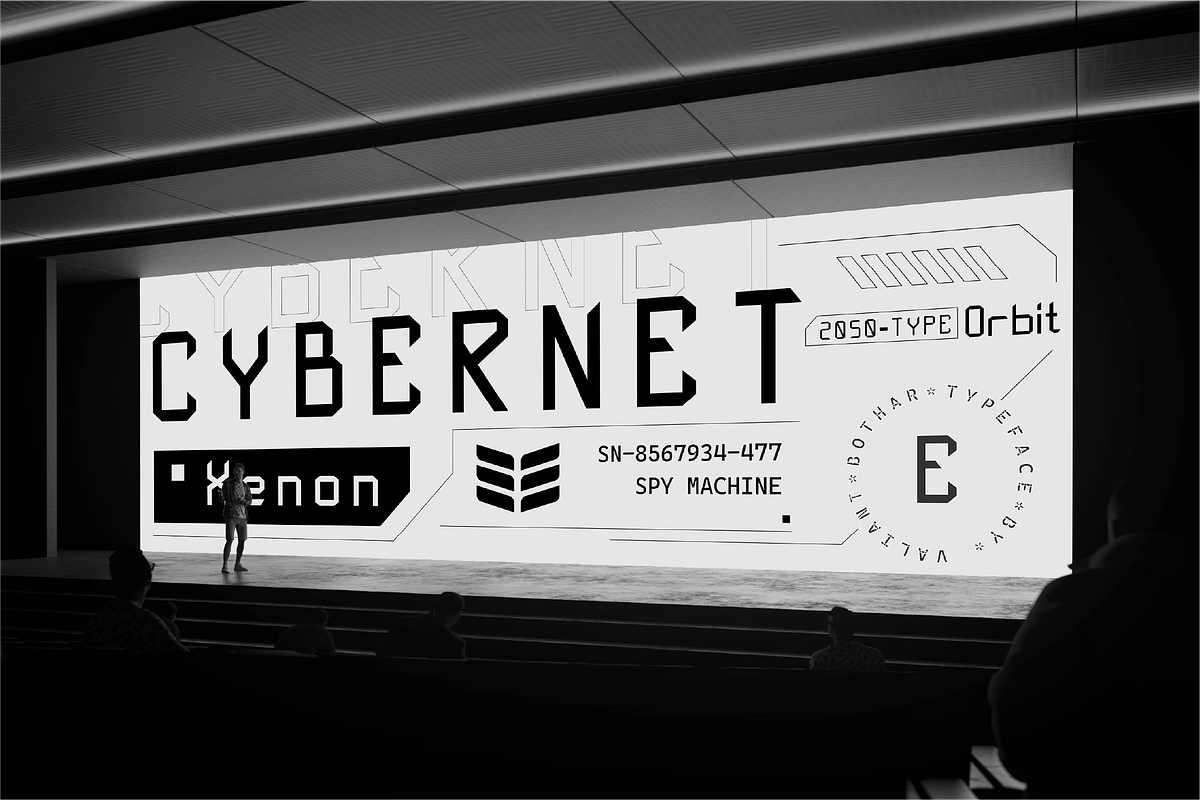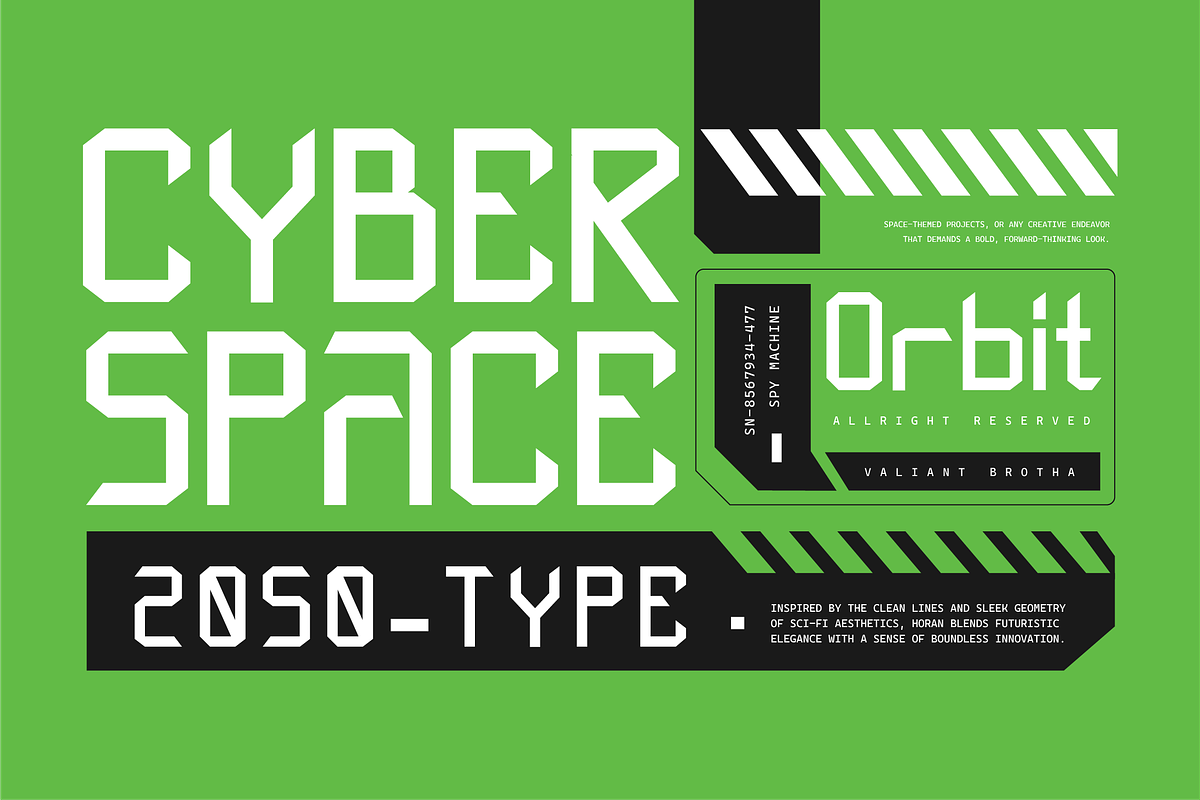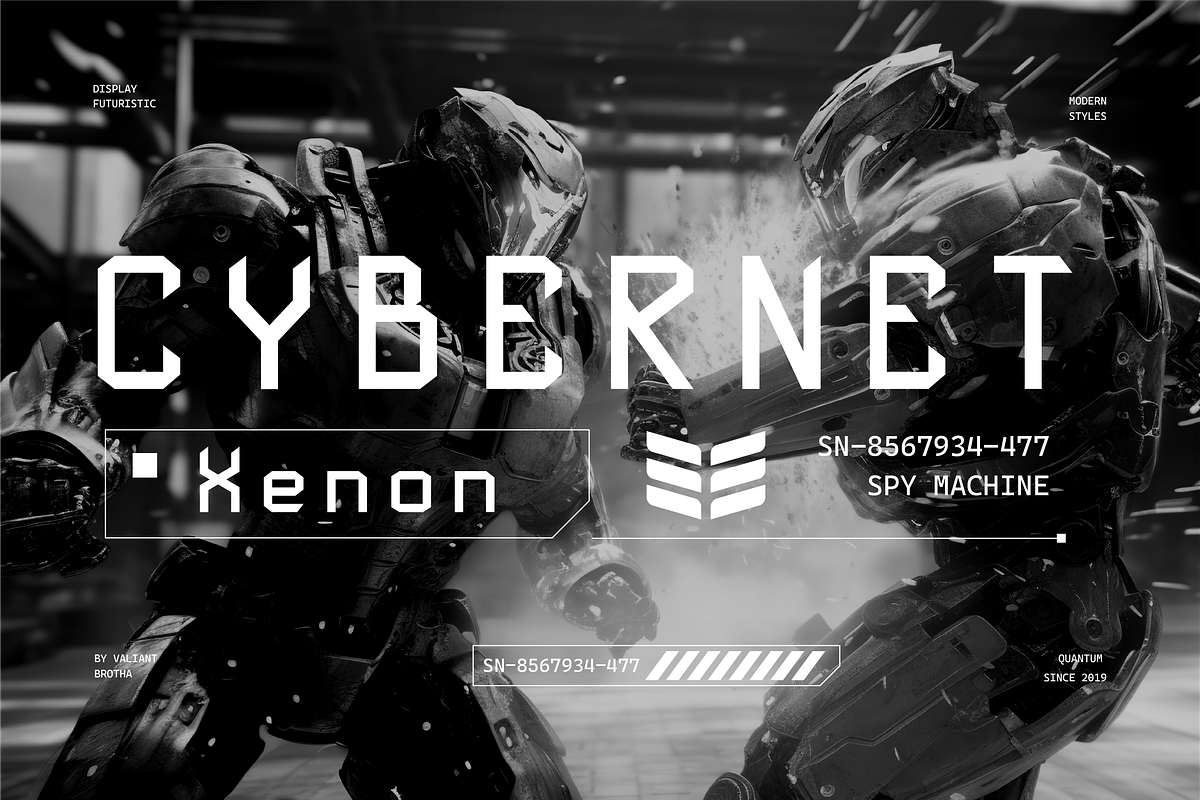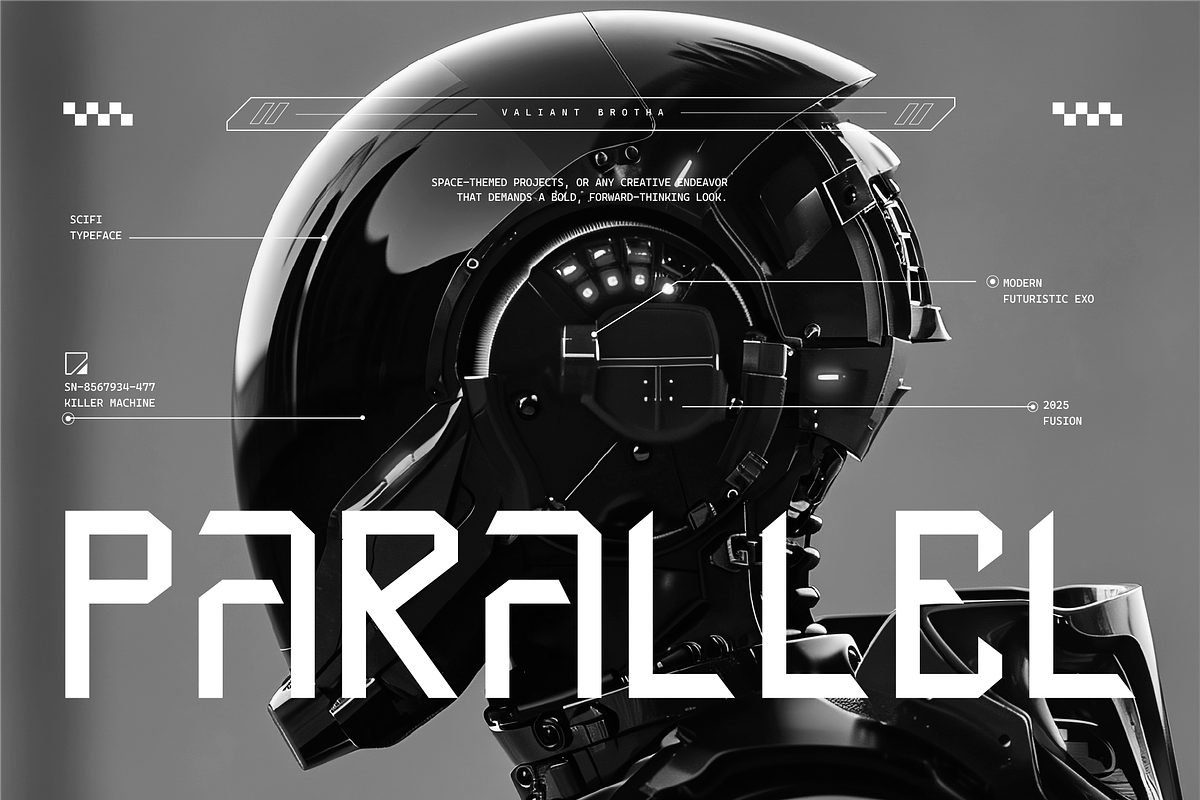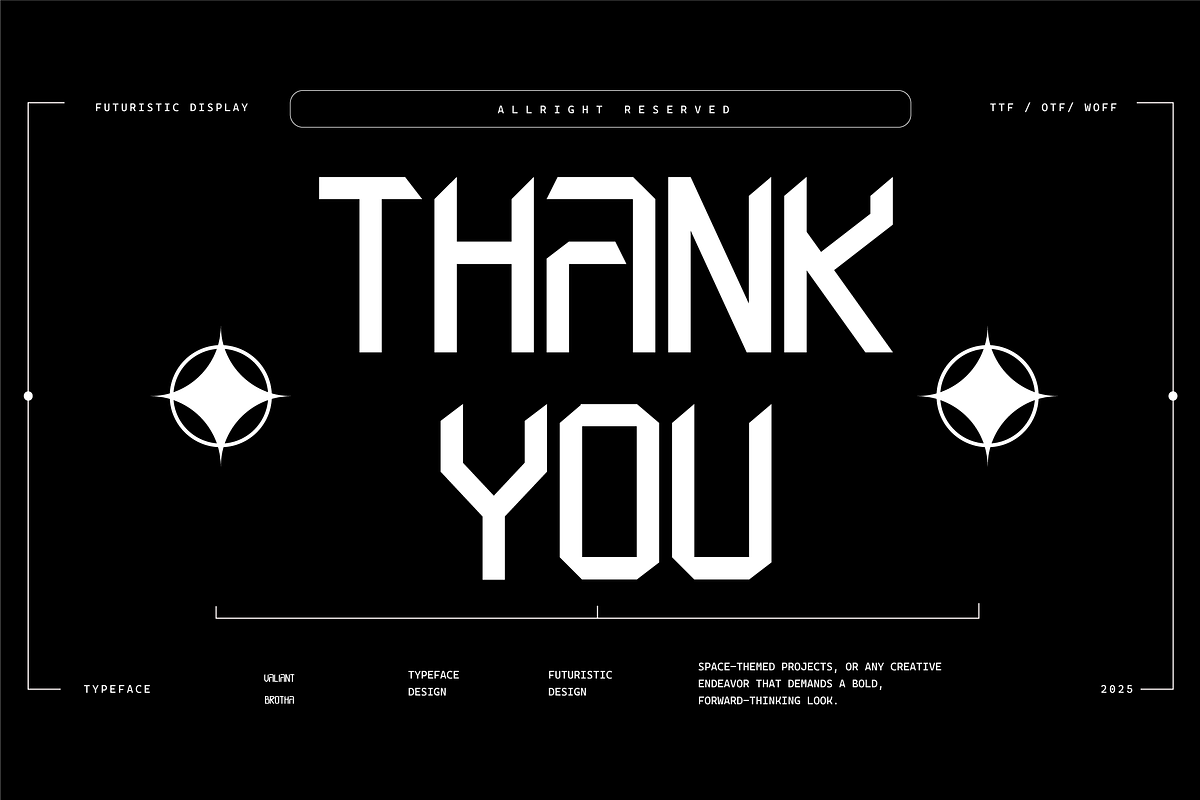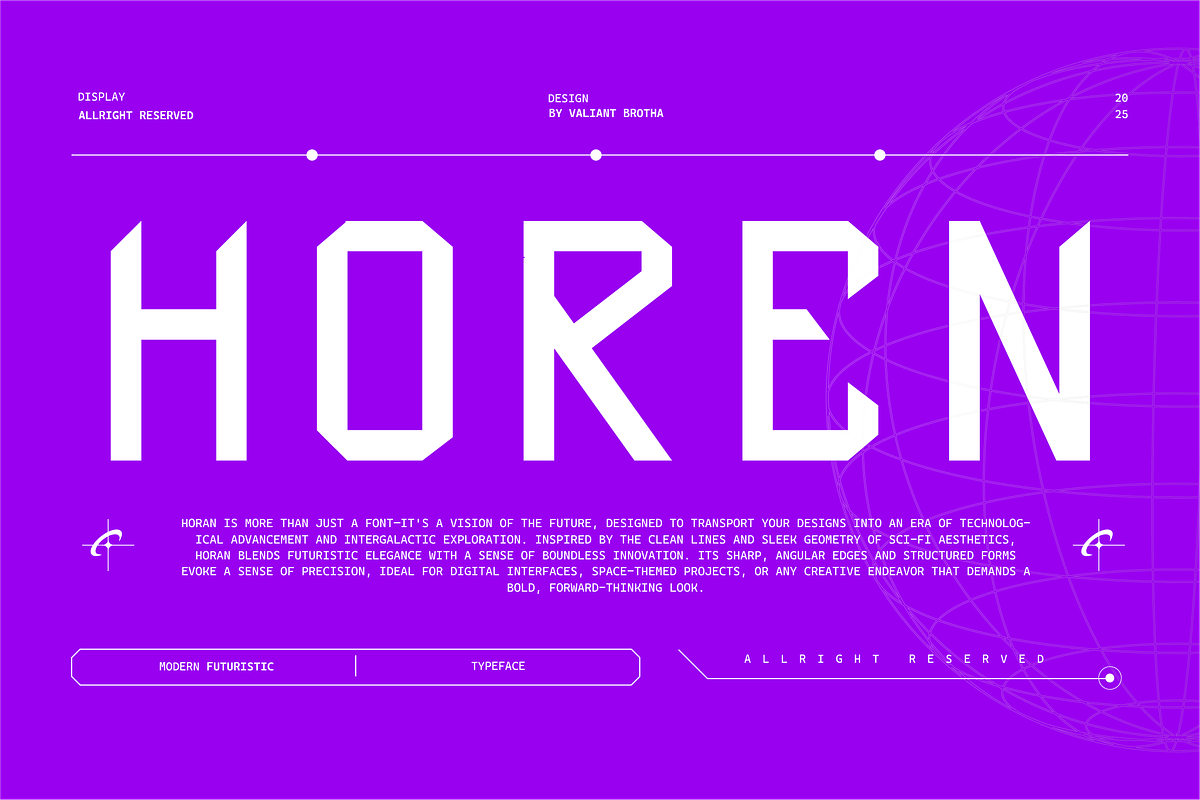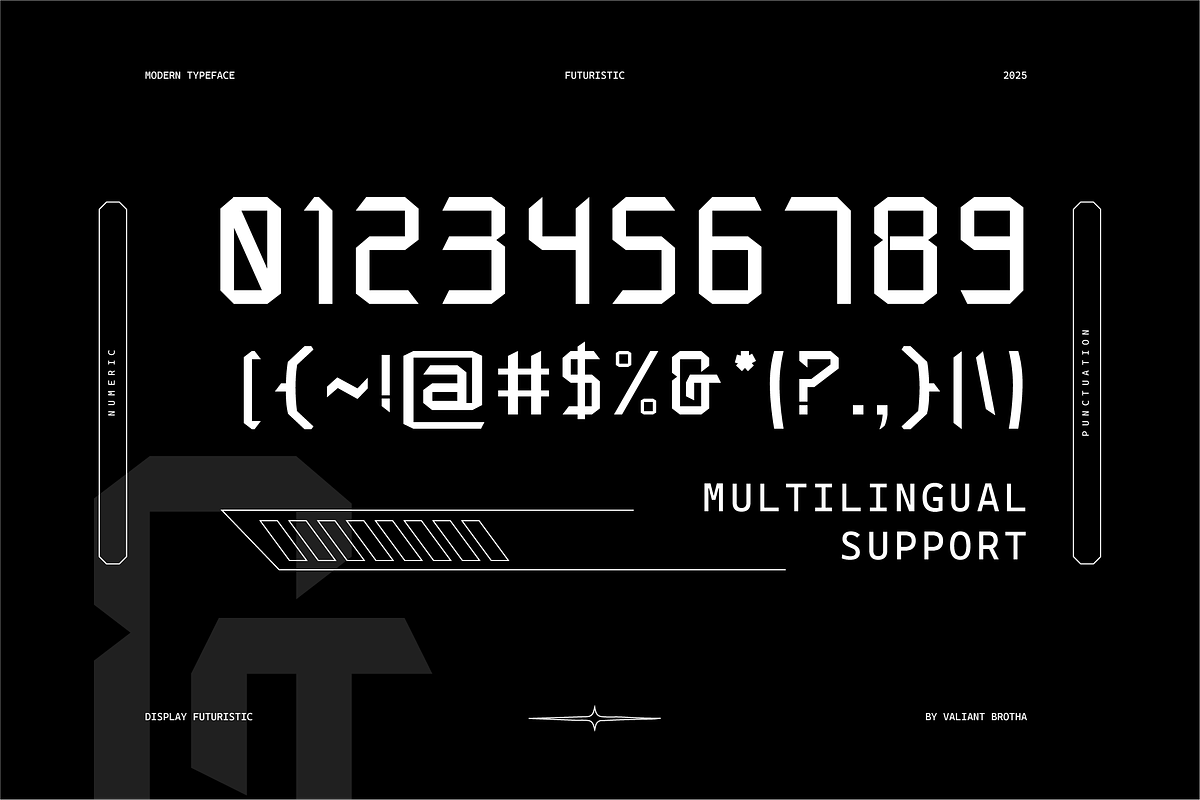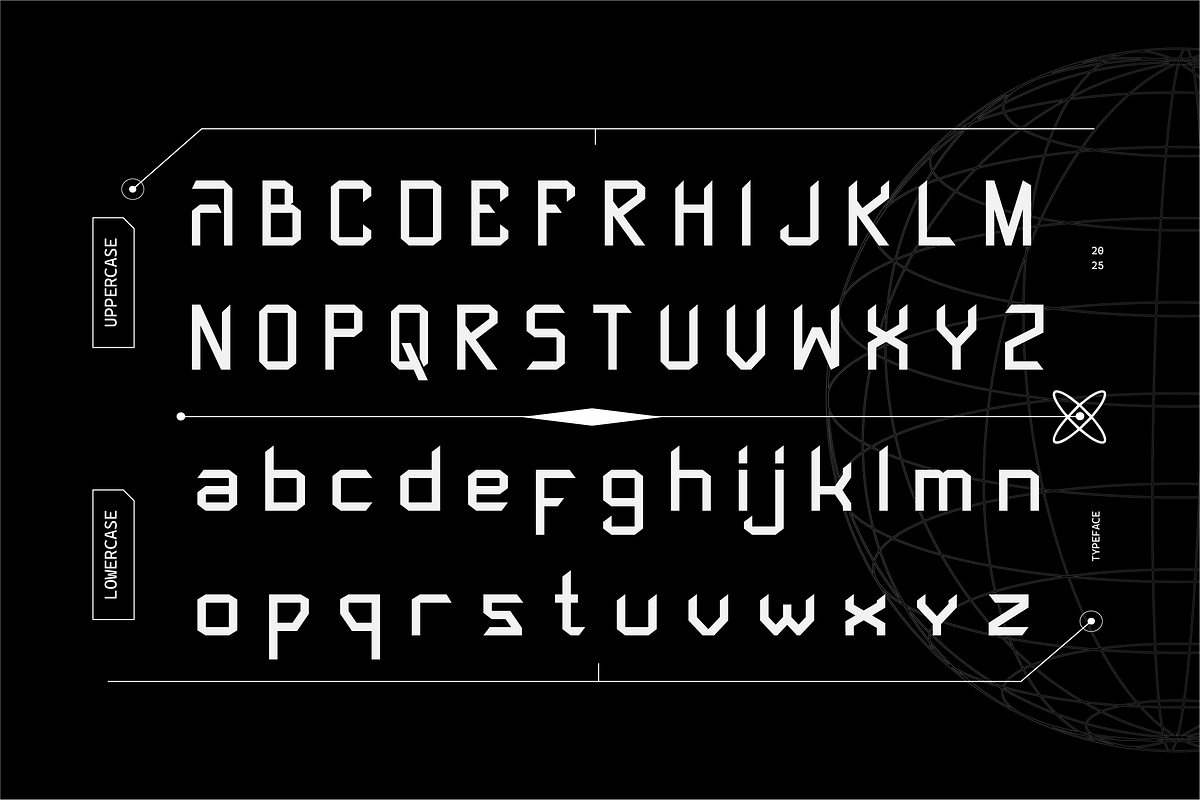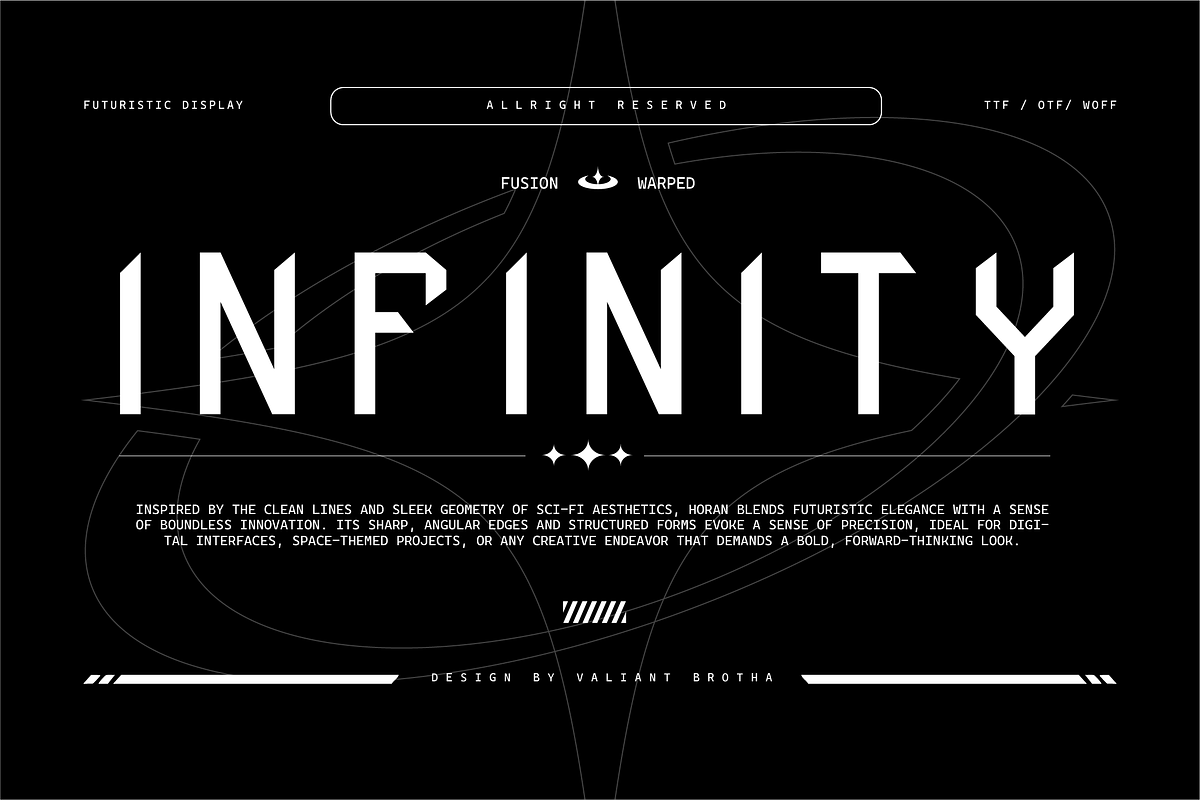
VB Horen - Futuristic Display Font
Horen Font is a cutting-edge typeface designed with a futuristic and techno-inspired aesthetic. Its sleek lines, geometric shapes, and bold, modern curves create a sense of innovation and forward-thinking.